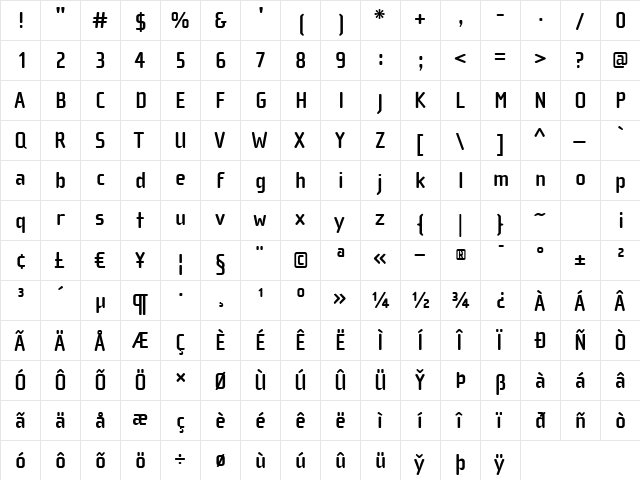
ChollaSansBold Bold Font Preview
ChollaSansBold Bold
ChollaSansBold Bold Font Details
| Foundry | Emigre |
| Designer | Sibylle Hagmann |
Design Context for ChollaSansBold Typeface
ChollaSansBold takes a measured approach to typography — its balanced proportions and neutral character make it a reliable workhorse for both digital and print work. Its bold stroke weight gives it real presence on the page.